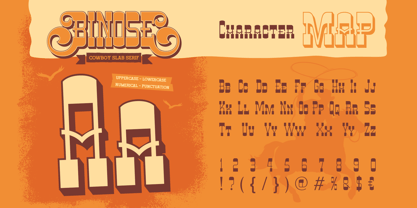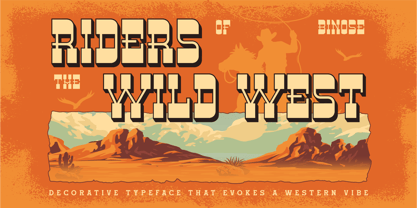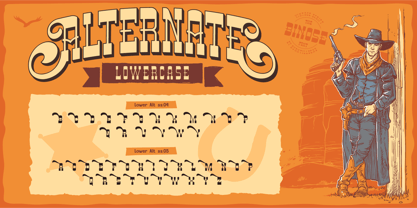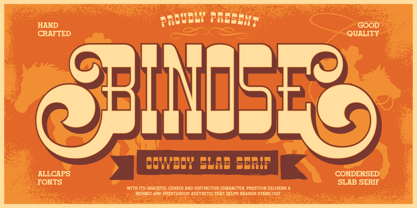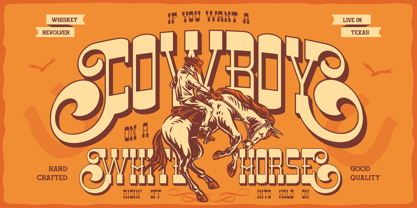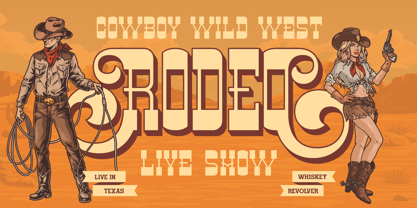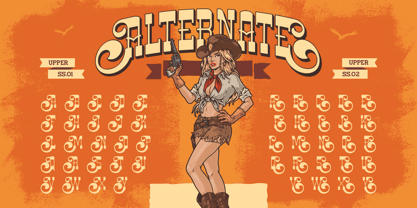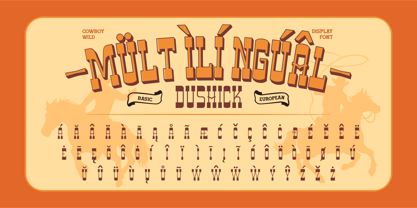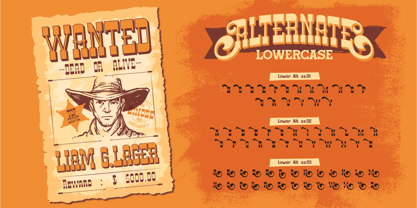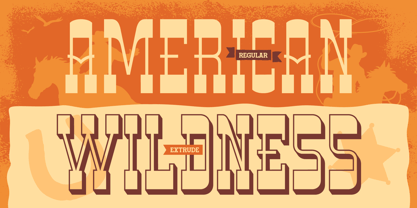
Binose
Binose is a bold cowboy slab serif font packed with character, swirling curves, and a rugged western charm. Inspired by vintage rodeo posters and old wild west signage, Binose brings a hand-crafted, authentic frontier feel to any design project. With its decorative curls and sturdy slab serif structure, this font delivers a rustic yet refined aesthetic that instantly evokes saloons, ranches, and desert horizons.
Binose comes in two complementary styles — Regular and Extrude — giving you the flexibility to switch between a clean bold look and a dimensional, eye-catching 3D effect. The font includes full uppercase and lowercase support, numerals, and punctuation, making it versatile enough for logos, branding, apparel, posters, and product packaging with a western theme.
Perfect for: Western & cowboy-themed logos, Whiskey, BBQ, and saloon branding, Rodeo posters and event flyers, Ranch, ranch wear, and outdoor apparel, Country music merchandise, Leather goods and craft branding, Vintage Americana packaging design
Features: A – Z set (Uppercase & Lowercase), Number, Punctuation, Alternates, Multilingual